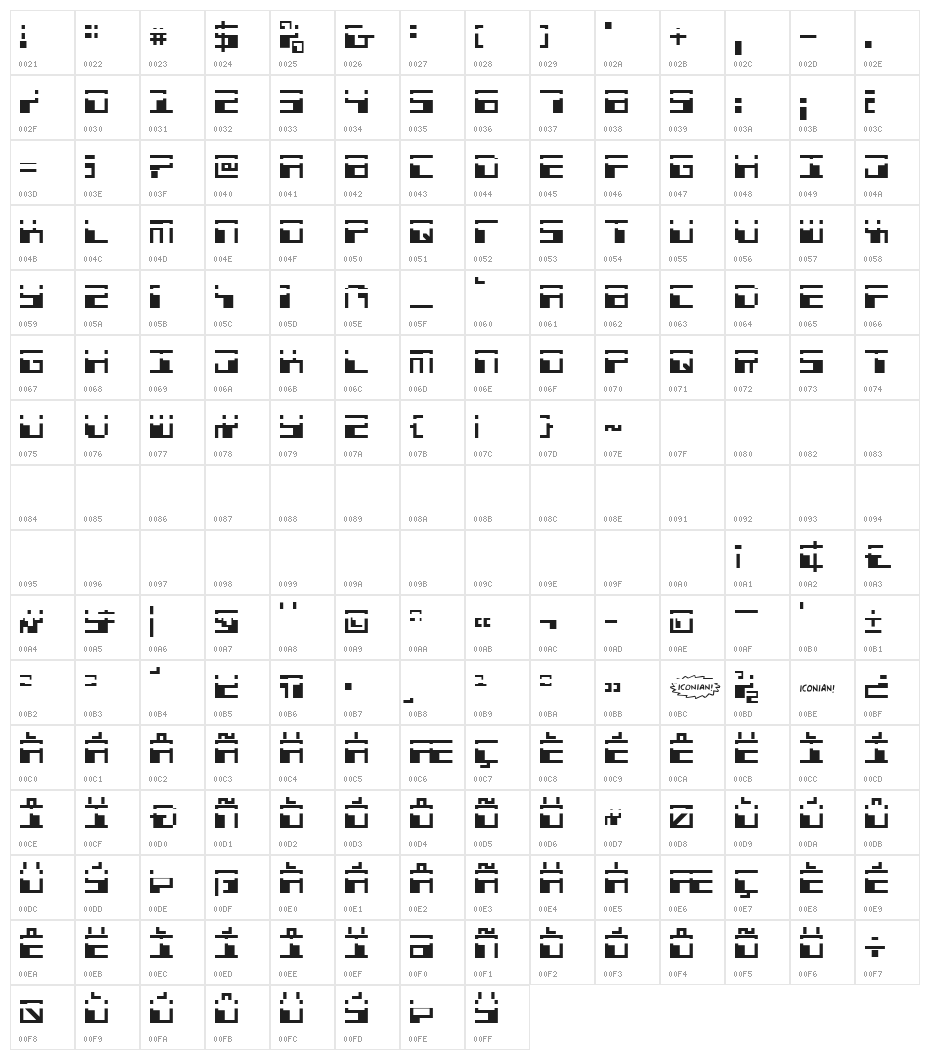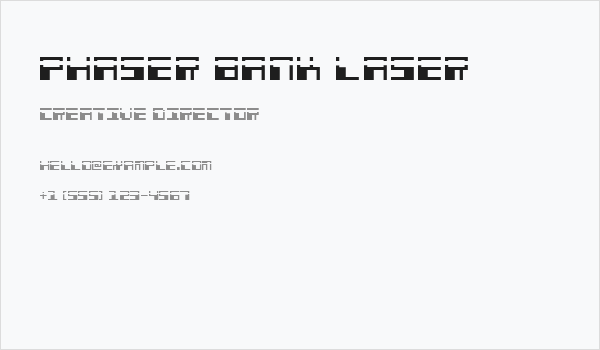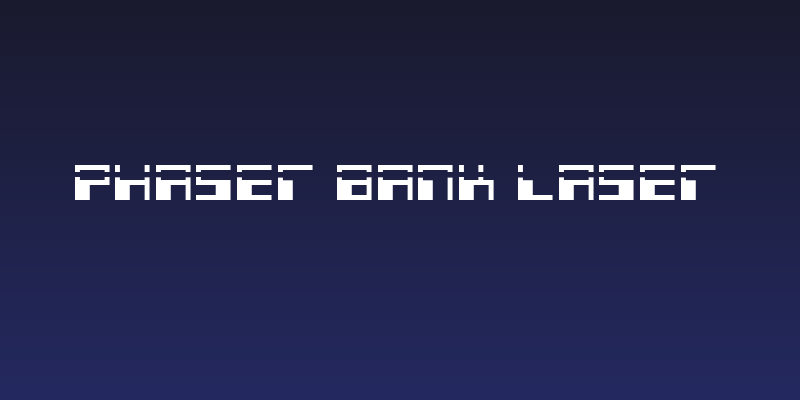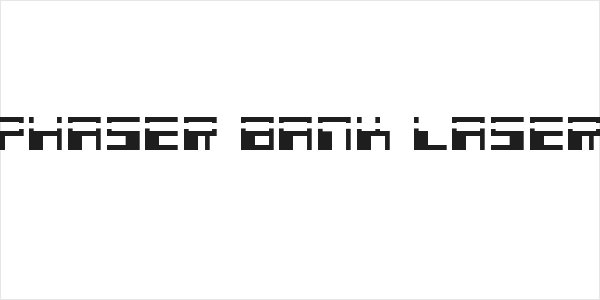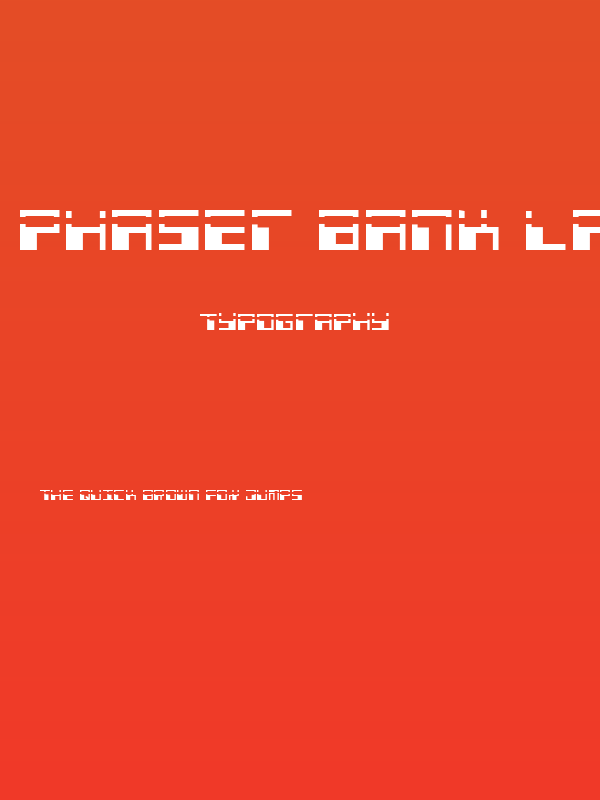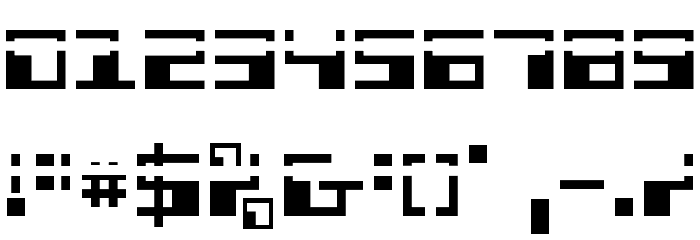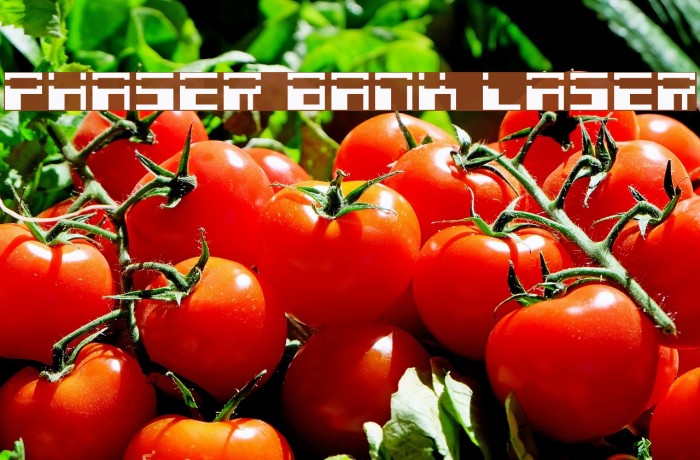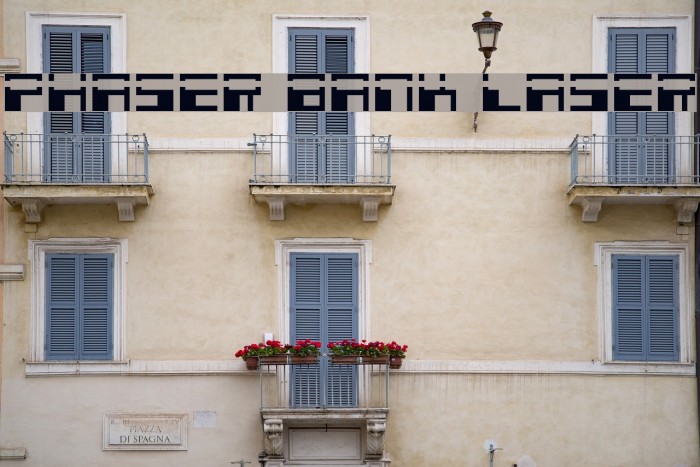
Phaser Bank Laser Font
Phaser Bank Laser Description
This font features a futuristic and digital aesthetic, characterized by its blocky and geometric letterforms. The design is reminiscent of early digital displays or pixelated screens, with each character constructed from a series of square and rectangular shapes. The uppercase and lowercase letters maintain a consistent height, contributing to a uniform appearance. The numerals and special characters follow the same design principles, ensuring cohesion across all glyphs. The font's distinct style makes it ideal for projects that require a modern, tech-inspired look.